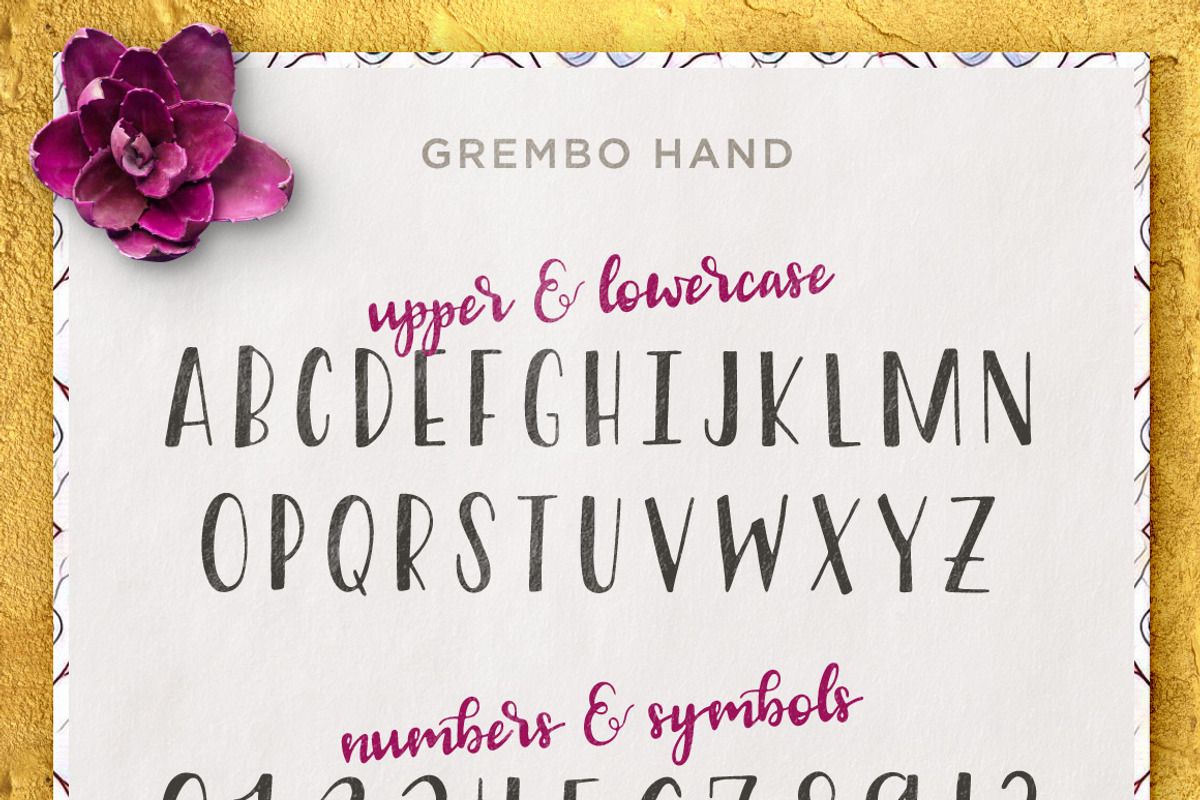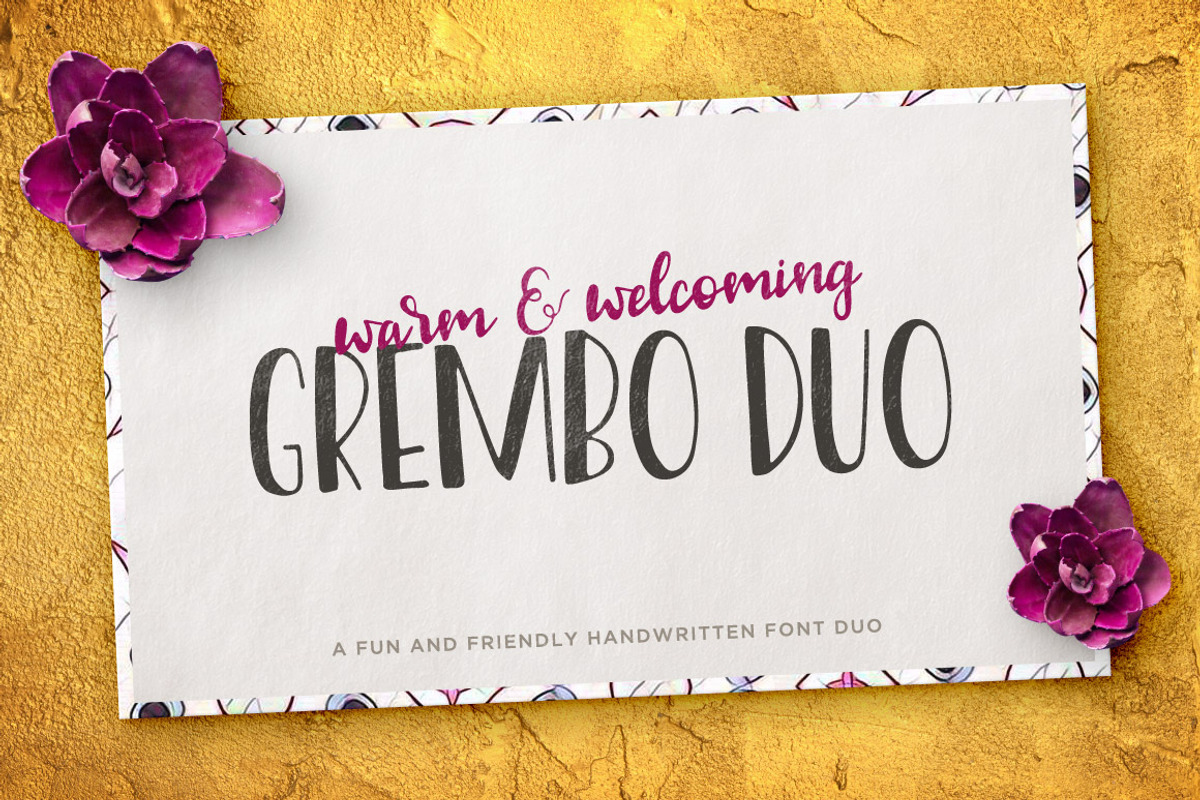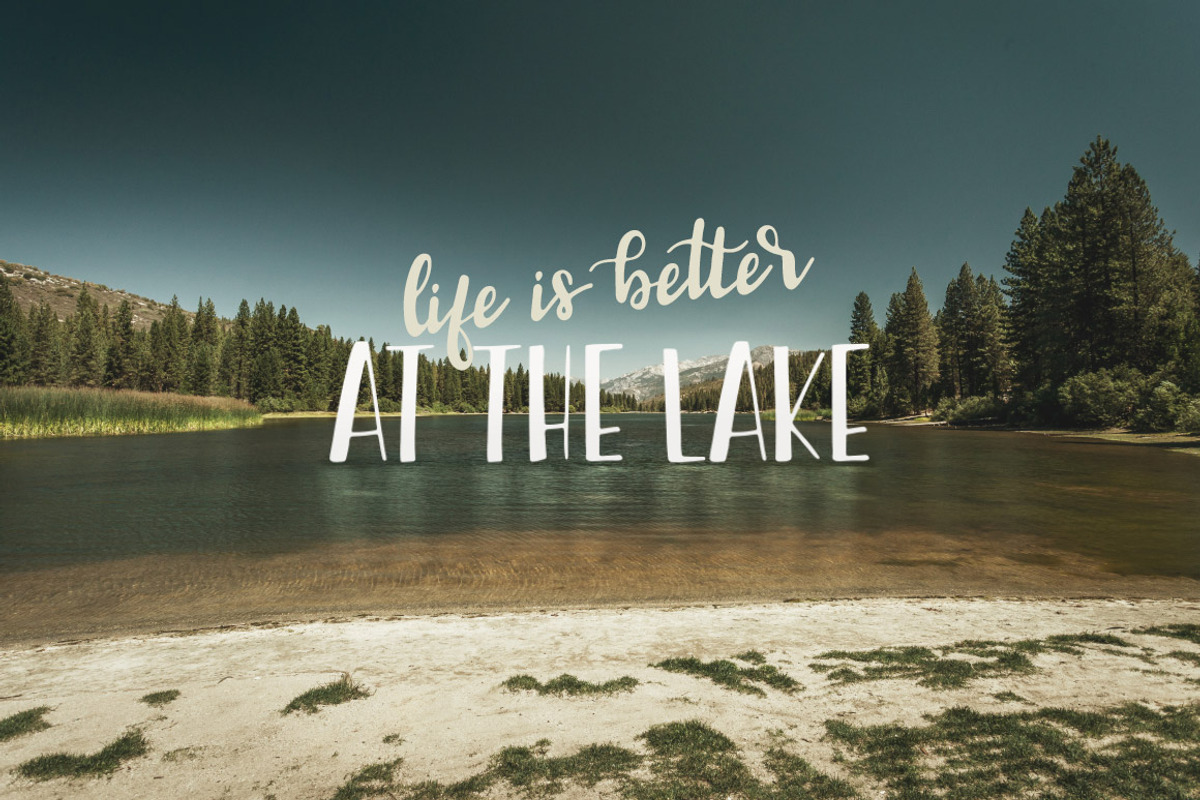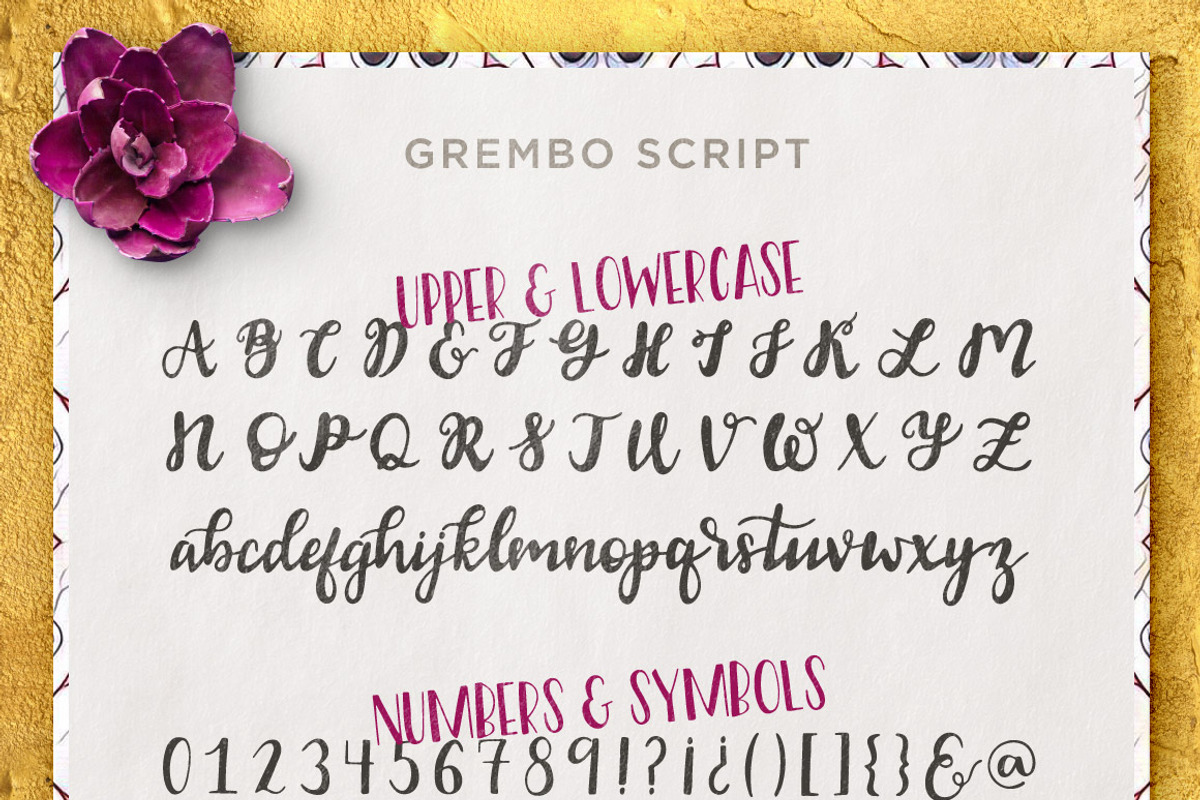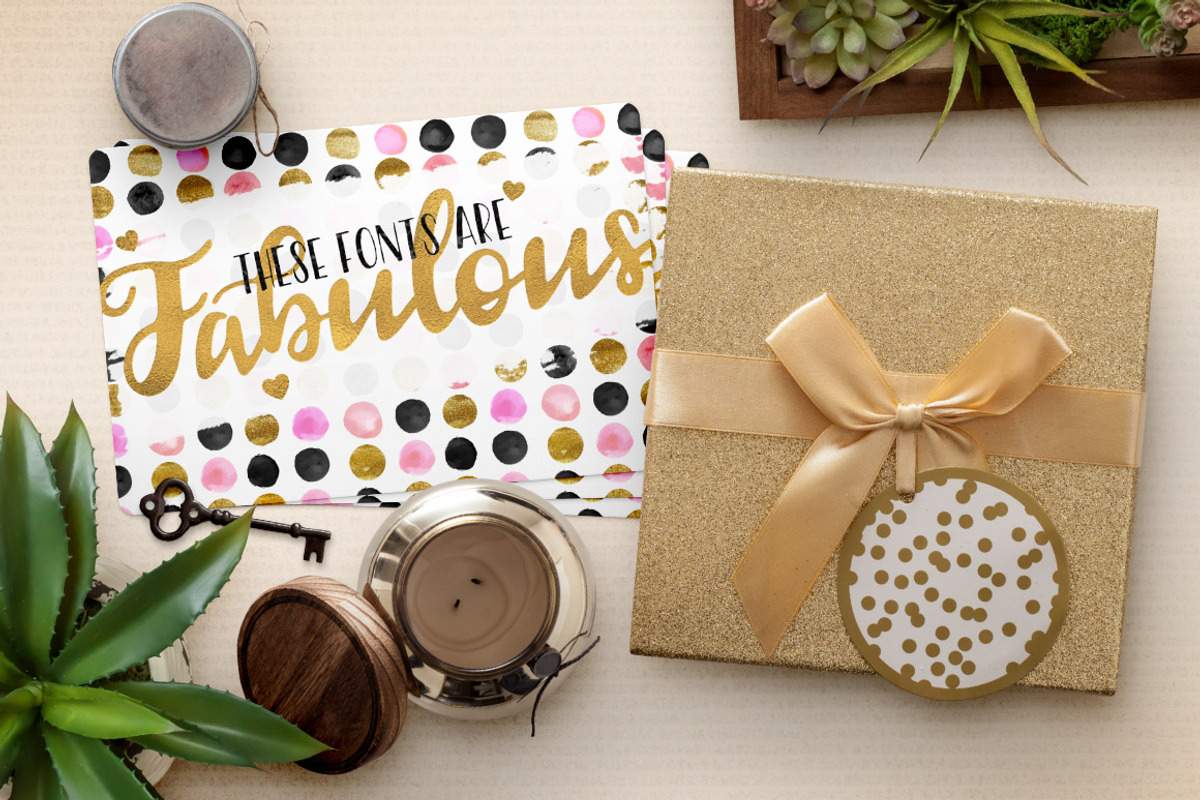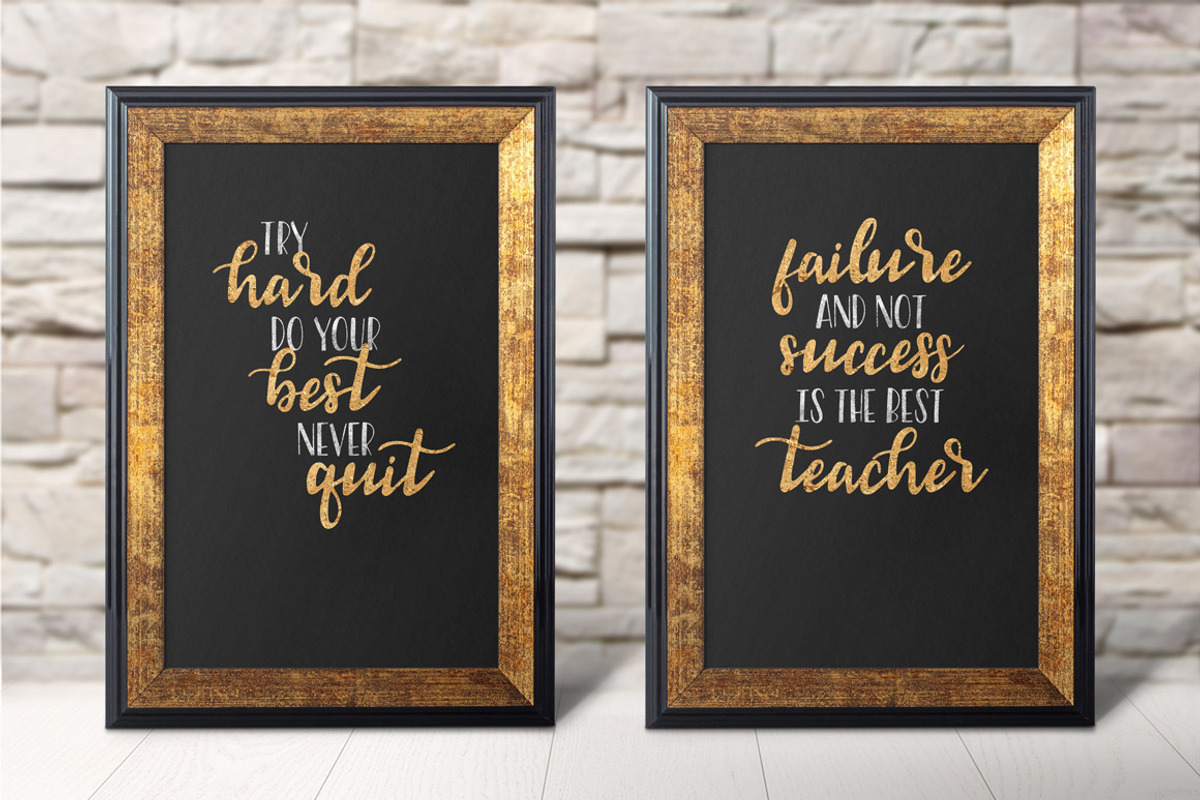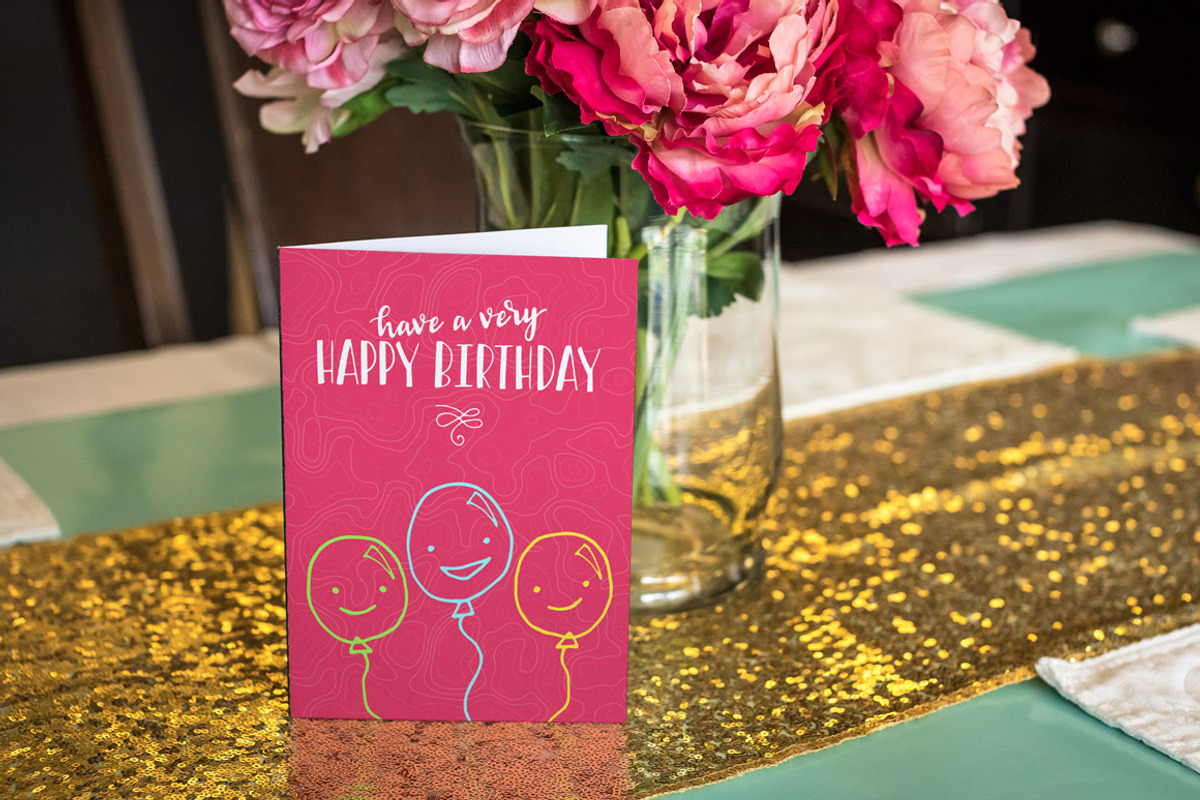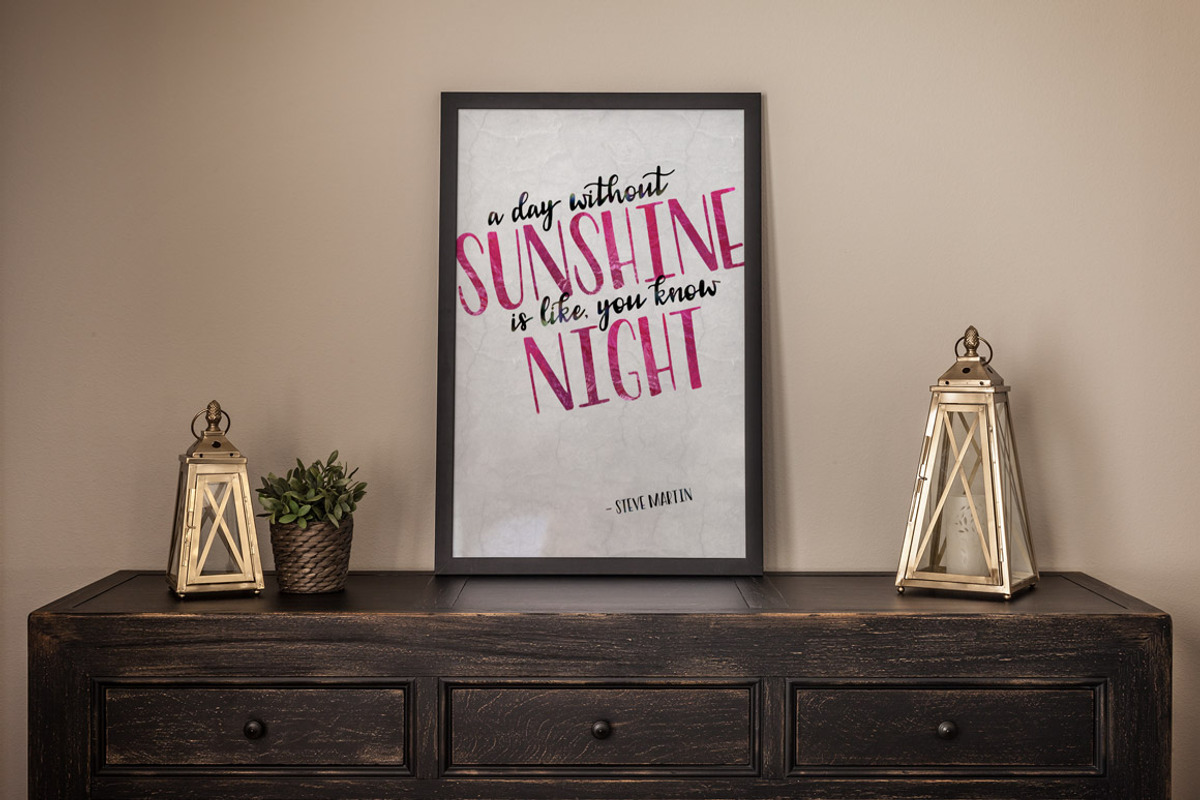
Grembo Font Duo
The Grembo Font Duo is a warm and welcoming combination. It's the friendliest pairing you'll find, making it perfect for invitations, logos, promotional graphics, and more.
Grembo Hand is an all caps sans serif that works best at large sizes, but maintains legibility at smaller sizes too.
Grembo Script is hand drawn, yet smooth, giving it an authentically hand crafted feel.
These two fonts can be used together, or separately, any time you want to convey a caring, friendly feel.
Multilingual characters are included for both, making this dynamic duo as beautiful as it is flexible.